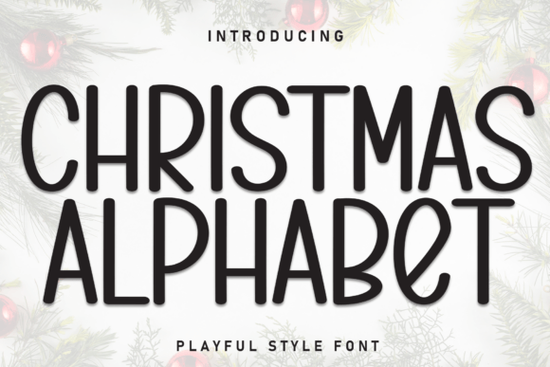
Looking for a unique way to add holiday flair to your designs? The Christmas Alphabet Font is a tall and thin handwritten typeface that brings a festive vibe to any project. Whether you're creating holiday cards, packaging, or branding materials, this font offers a charming and elegant look that stands out. Its clean, flowing style makes it ideal for a variety of applications, from logos to signage.
If you're a designer, craft hobbyist, or small business owner, the Christmas Alphabet Font can be a valuable addition to your collection. It works well for holiday-themed projects, making it perfect for seasonal promotions, gift tags, and more. The font’s versatility means it can fit into both modern and traditional design styles, giving you creative freedom without sacrificing quality.
Why Choose the Christmas Alphabet Font?
The Christmas Alphabet Font is designed with a handwritten aesthetic, which gives it a personal and authentic feel. This makes it especially useful for projects that require a warm, inviting tone. Unlike many other fonts, it maintains clarity even at smaller sizes, ensuring readability without losing its visual appeal.
For those who work with seasonal designs, this font can help streamline your workflow. Instead of searching for multiple fonts to match a holiday theme, one well-chosen typeface like the Christmas Alphabet Font can cover a wide range of needs. It’s also great for print-on-demand sellers looking to add a festive touch to their products.
Best Uses for the Christmas Alphabet Font
This font shines in a variety of design contexts. Here are some common uses:
- Logos: Add a handcrafted feel to your brand identity.
- Invitations: Create elegant holiday cards or event flyers.
- Product Packaging: Make your items stand out with a unique, festive design.
- Headlines and Signage: Use it for banners, posters, or store displays.
- Book Covers and Posters: Bring a personal touch to printed materials.
Its thin and tall structure makes it especially effective for headlines and titles where space is limited but impact is important. You can pair it with other fonts like Farmhouse Script or Cooper Black to create visually interesting layouts.
How to Use the Christmas Alphabet Font Effectively
To get the most out of the Christmas Alphabet Font, consider the following tips:
- Use it for short text: The font works best with short phrases or single words to maintain legibility.
- Pair with sans-serif fonts: Combining it with a simpler typeface can balance the design and improve readability.
- Experiment with colors: Try different color schemes to match your project's theme.
- Test on different backgrounds: Ensure the font looks good on both light and dark surfaces.
Whether you're working on a holiday campaign or simply looking for a fresh new look, the Christmas Alphabet Font offers a stylish and functional solution. With its elegant design and broad applicability, it’s a great choice for anyone looking to add a touch of festivity to their work.